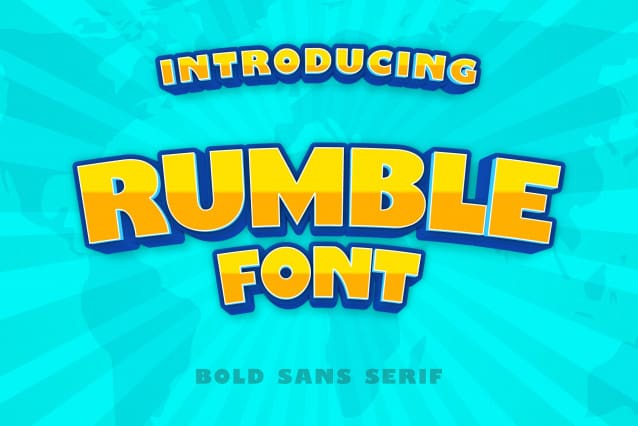
Rumble Font
Rumble Font a bold statement with our latest sans-serif font. With its clean lines and modern appeal, this font is sure to turn heads and leave a lasting impression. Perfect for headlines, logos, and any design that demands attention. It is both functional and stylish, making it a versatile choice for a wide range of design projects.